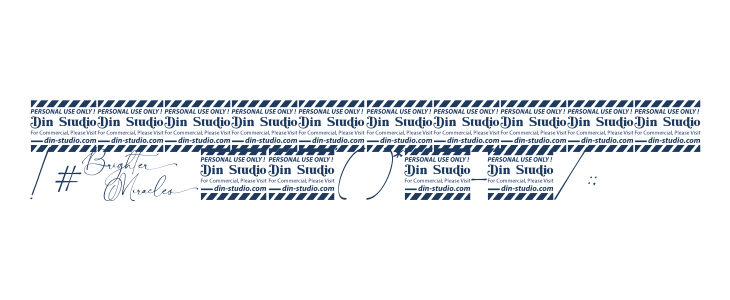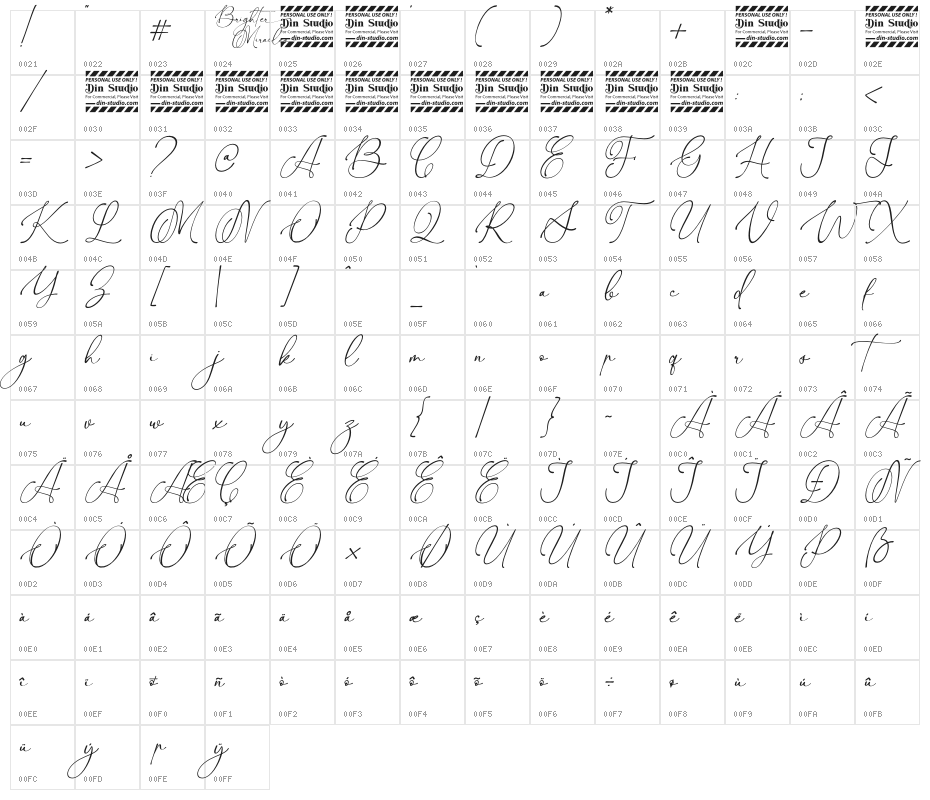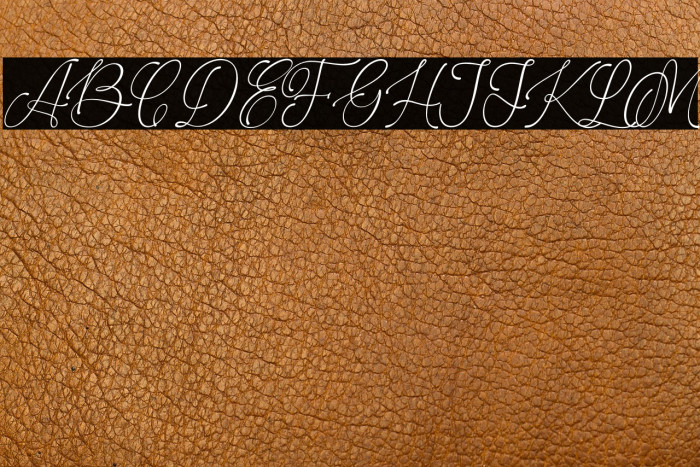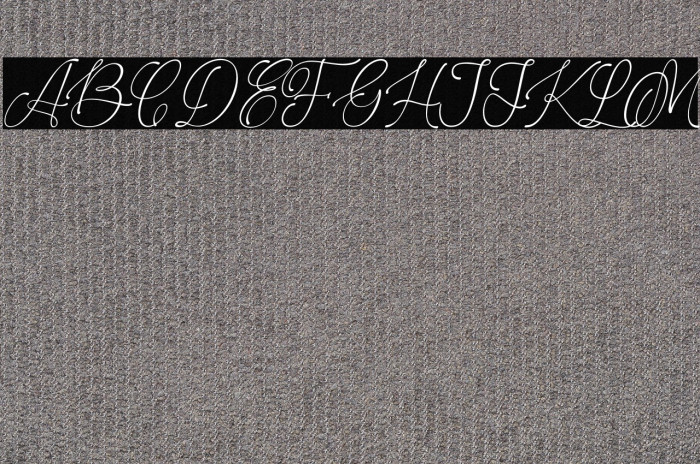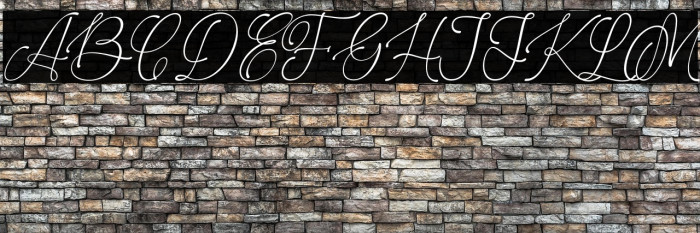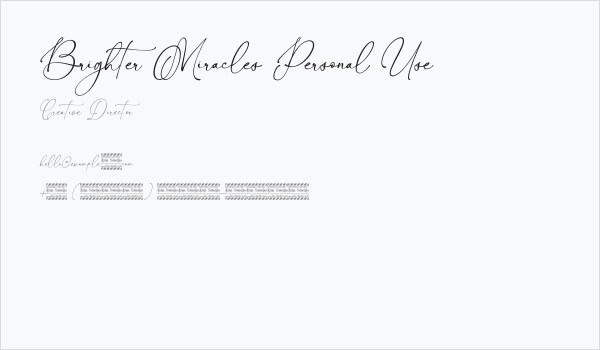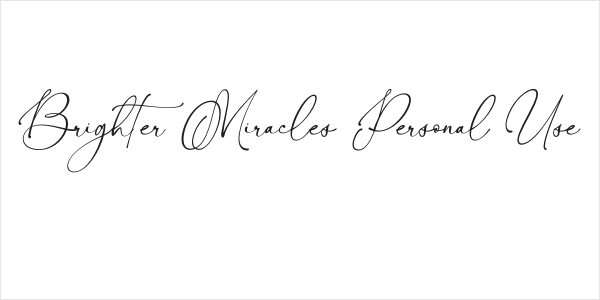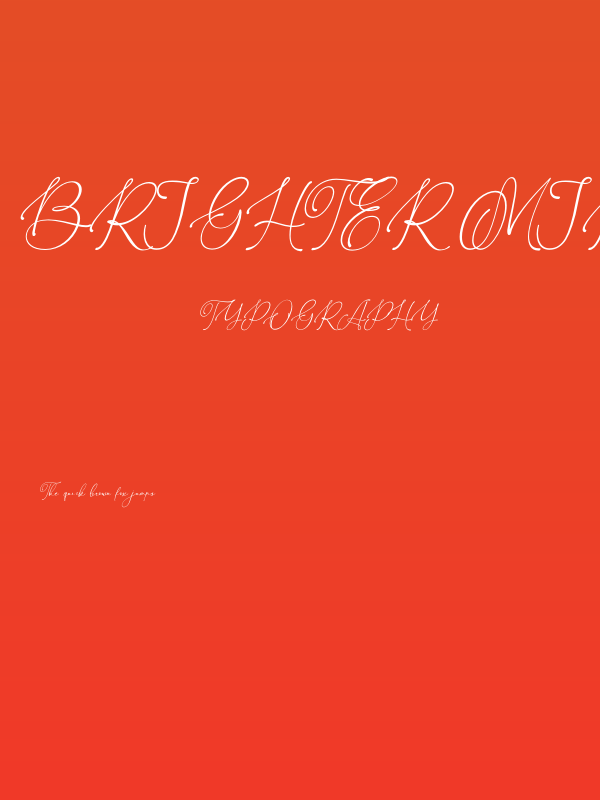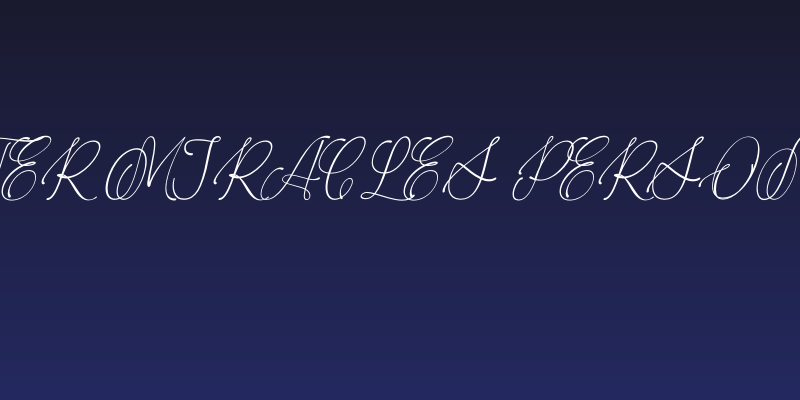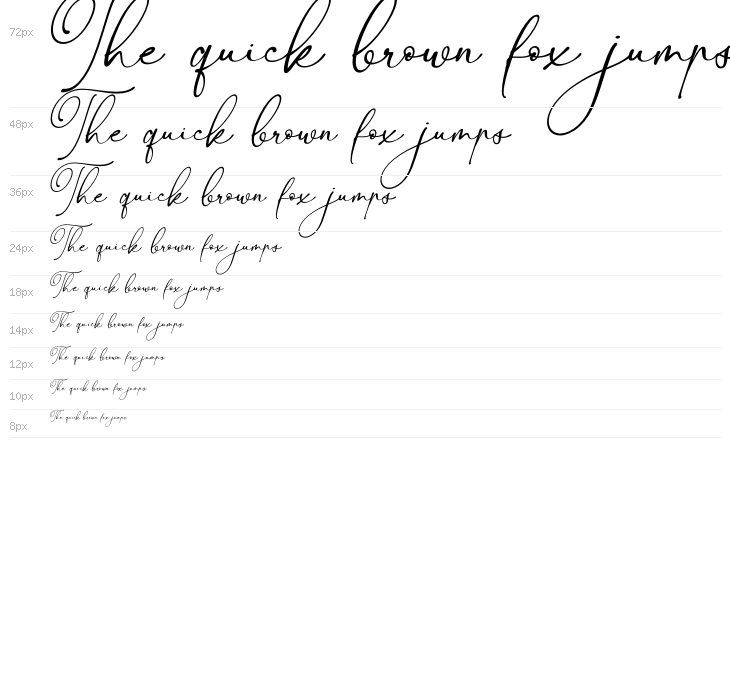
Brighter Miracles Personal Use Font
Brighter Miracles Personal Use Description
This elegant script font features a flowing, cursive style with intricate loops and flourishes. The uppercase letters are particularly ornate, with sweeping ascenders and descenders that create a sense of movement and grace. The lowercase letters maintain a consistent style, with smooth curves and a slightly slanted orientation. The font's delicate lines and high contrast between thick and thin strokes give it a refined and sophisticated appearance. It's ideal for projects that require a touch of elegance and formality, such as wedding invitations, branding, and upscale packaging. The spacing between characters is tight, enhancing the connected, handwritten feel of the text.
| Proposed Projects | Wedding invitations, luxury branding, elegant packaging, formal event materials. |